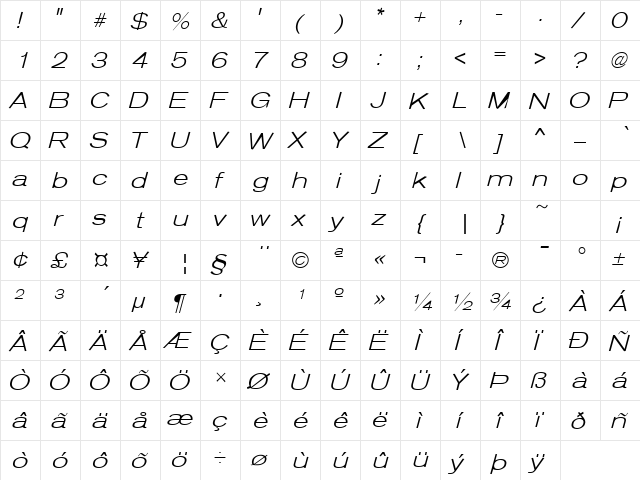
Sage Extended Light Oblique Font Preview
Design Context for Sage Extended Light Typeface
Sage Extended Light takes a measured approach to typography — its balanced proportions and neutral character make it a reliable workhorse for both digital and print work. The dynamic lean of this cut emphasises speed and emphasis in any layout. Its slender proportions lend an understated elegance to any composition.
Pro Tip: Use Sage Extended Light for emphasis, pull quotes, and subheadings where its slanted energy can add rhythm to the layout.